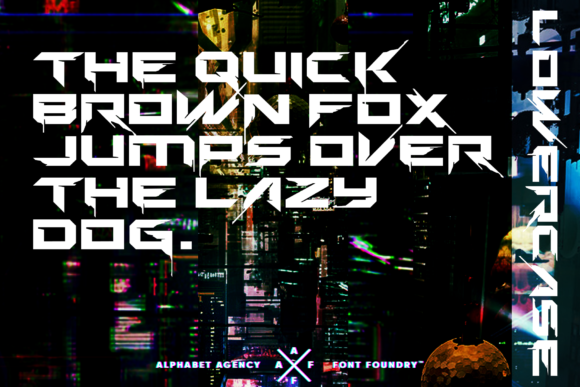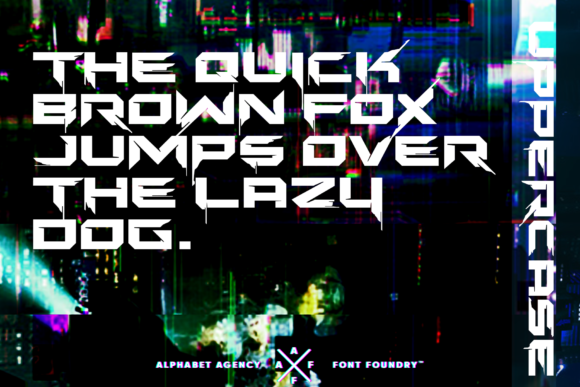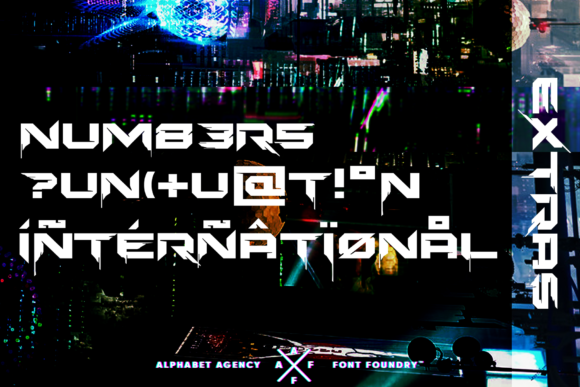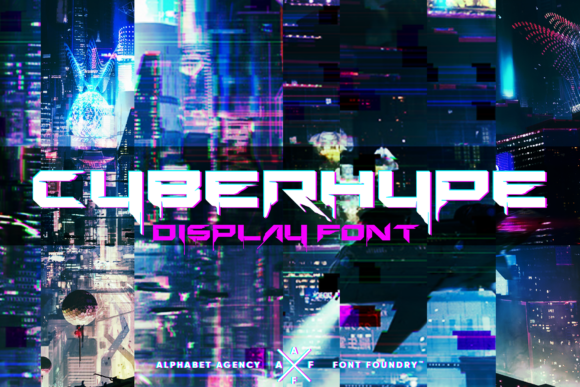
Cyberhype Font: The Ultimate Choice for Bold and Edgy Designs
Are you tired of using the same old fonts for your designs? Do you want to add a touch of futurism and edginess to your creative projects? Look no further than the Cyberhype Font! This cool, bold, and robotic display font is perfect for designers and crafters who want to make their ideas stand out from the crowd.
What is Cyberhype Font?
Cyberhype Font is a modern, sans-serif font that is inspired by the futuristic and technological advancements of the cyber world. Its bold and robotic design makes it perfect for creating eye-catching headlines, titles, and slogans that demand attention. The font is highly versatile and can be used for a wide range of design projects, from posters and flyers to logos and branding materials.
Key Features of Cyberhype Font
• Bold and Edgy Design: Cyberhype Font features a bold and edgy design that is perfect for creating striking headlines and titles.
• Robotic and Futuristic: The font’s robotic and futuristic design makes it ideal for projects that require a technological or cyberpunk theme.
• Highly Versatile: Cyberhype Font can be used for a wide range of design projects, from print materials to digital media.
• Easy to Read: Despite its bold design, Cyberhype Font is easy to read, even at smaller sizes.
How to Use Cyberhype Font
Cyberhype Font is perfect for designers and crafters who want to add a touch of futurism and edginess to their creative projects. Here are some ideas on how to use this amazing font:
• Posters and Flyers: Use Cyberhype Font to create eye-catching posters and flyers that demand attention.
• Logos and Branding: Create a bold and memorable logo for your brand using Cyberhype Font.
• Social Media Graphics: Use Cyberhype Font to create striking social media graphics that stand out from the crowd.
• Web Design: Add a touch of futurism to your website design with Cyberhype Font.
Benefits of Using Cyberhype Font
Using Cyberhype Font can bring numerous benefits to your design projects. Here are some of the advantages of using this amazing font:
• Unique and Memorable: Cyberhype Font is a unique and memorable font that can help your designs stand out from the crowd.
• Flexibility: The font is highly versatile and can be used for a wide range of design projects.
• Time-Saving: Using Cyberhype Font can save you time and effort in creating striking designs.
In conclusion, Cyberhype Font is a cool, bold, and robotic display font that is perfect for designers and crafters who want to add a touch of futurism and edginess to their creative projects. With its highly versatile design and ease of use, Cyberhype Font is an excellent choice for a wide range of design projects. So why wait? Download Cyberhype Font today and notice how it makes your ideas stand out!